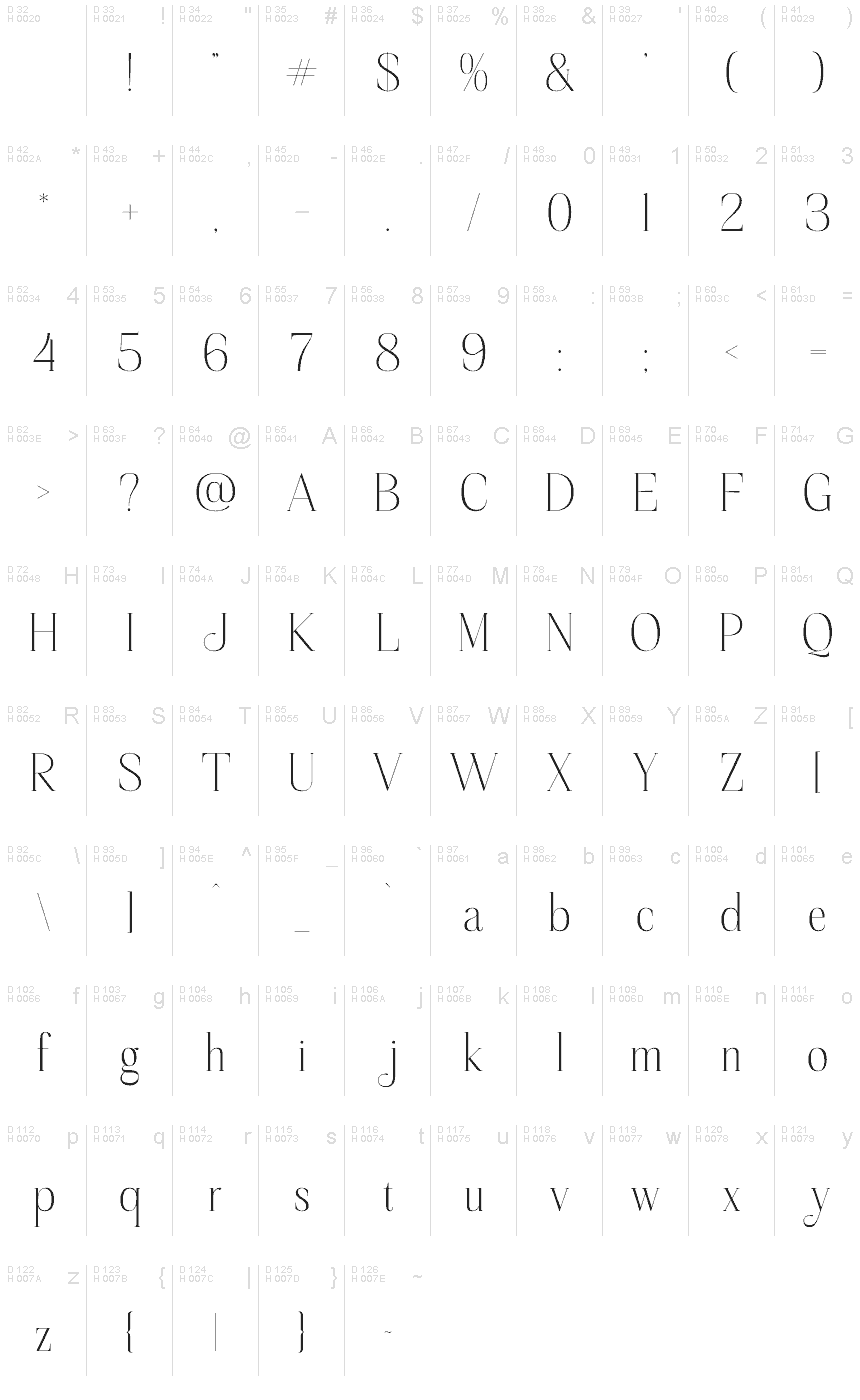
Sageffine
Sageffine font by Storytype Studio is a condensed, light serif font that combines elegant style with a refined presence. Its subtle curves add a sophisticated mood to designs while maintaining a modern feel. This versatile font flows beautifully in projects, especially those that require elegance or focus on femininity.
Sageffine is perfect for fashion branding, feminine logos, professional business cards, envelopes, posters, or magazines. Website designs can also benefit from its stylish appearance – whether for headers or any other content. Signs as well brochures are some other possibilities where it will work charmingly. Enjoy experimenting and showcasing Sageffine’s uniqueness!